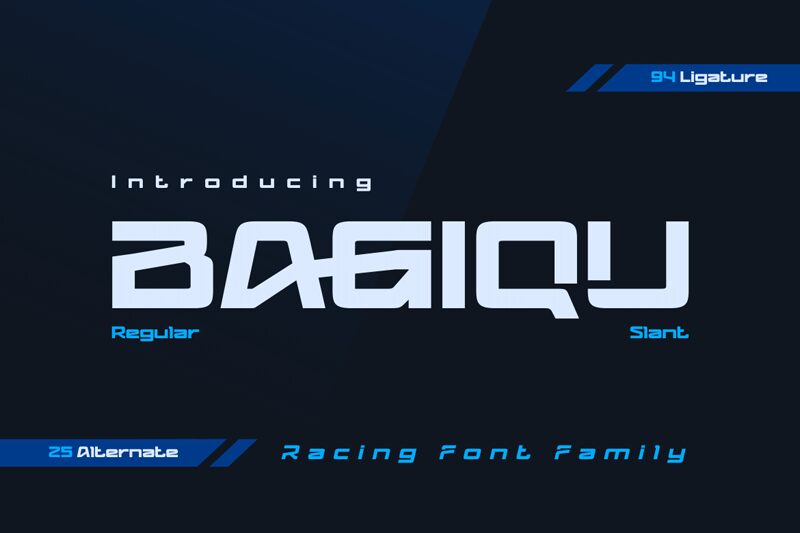
Bagiqu Slant by Twinletter stands out as a techno-style display font with an unmistakable futuristic vibe. Its expanded characters boast bold confidence, while the slanted design suggests motion and progression. The sleek lines and sharp edges evoke a sense of modernity, making it a perfect choice for projects that aim to be at the forefront of design trends.
In terms of applications, Bagiqu Slant shines in contexts that require a strong visual impact such as branding for innovative tech companies, eye-catching headlines in digital media, or dynamic promotional materials where its unique style will help messages stand out. This font is not just about looks; its distinctive personality promises to imbue any text with an aura of cutting-edge sophistication.